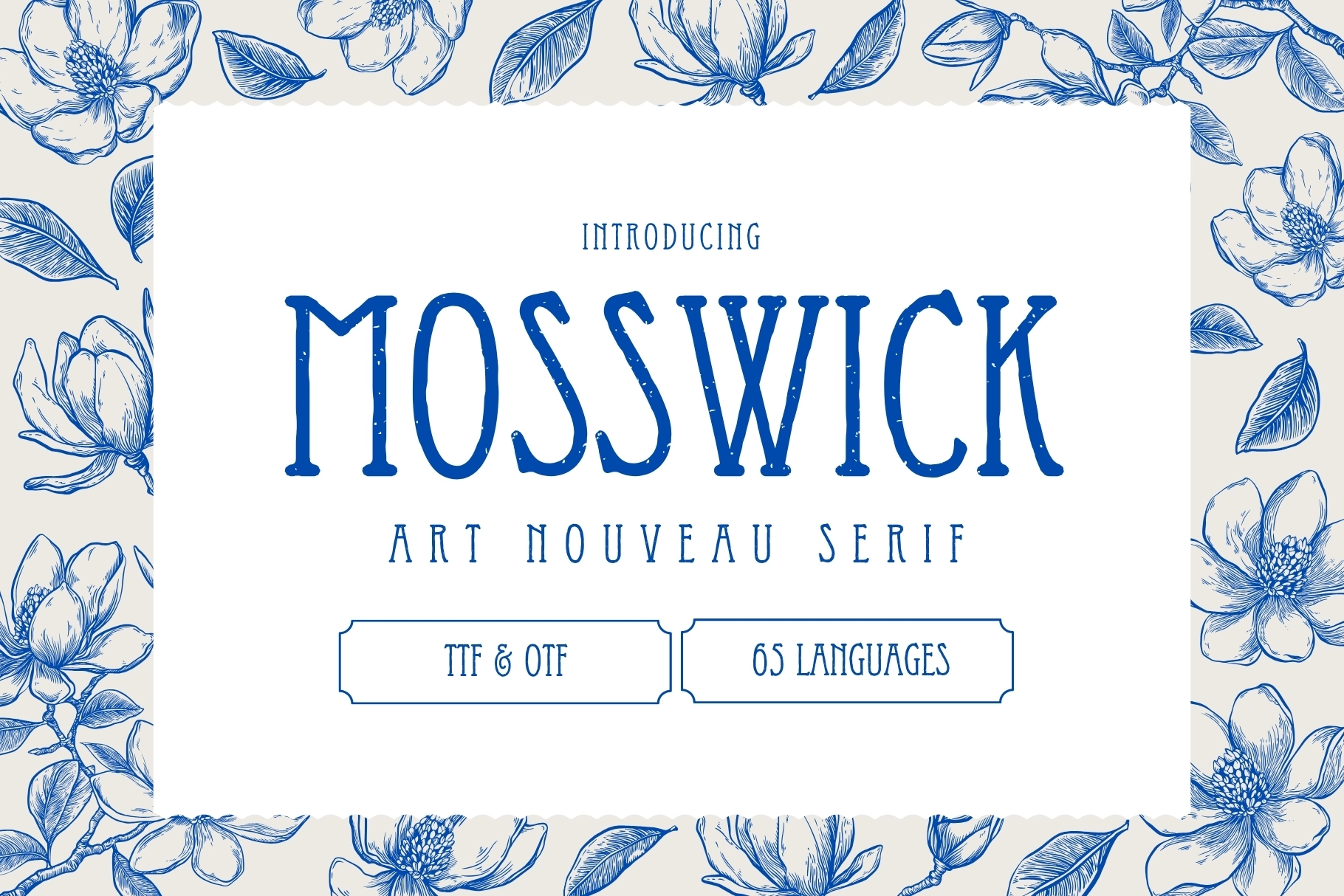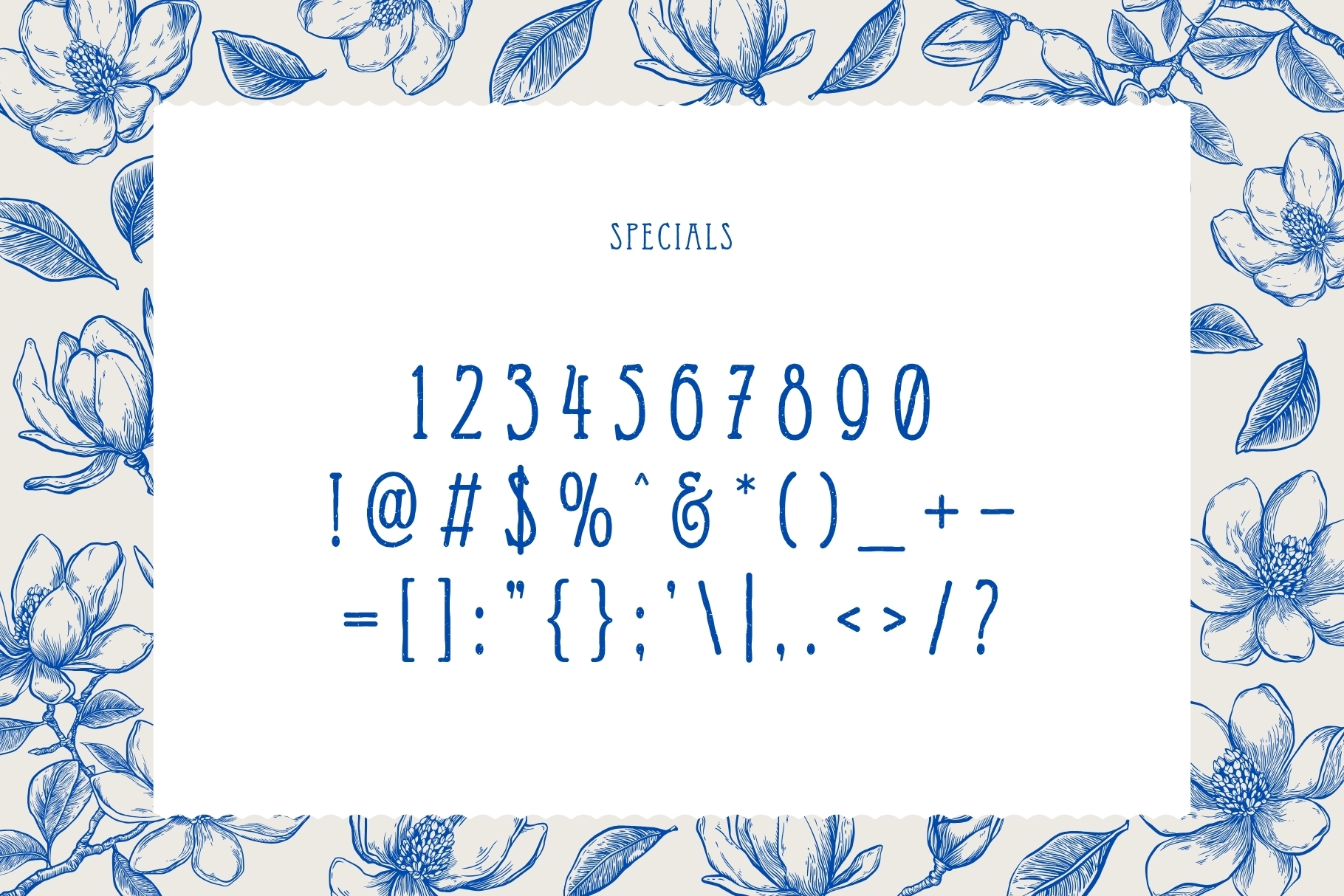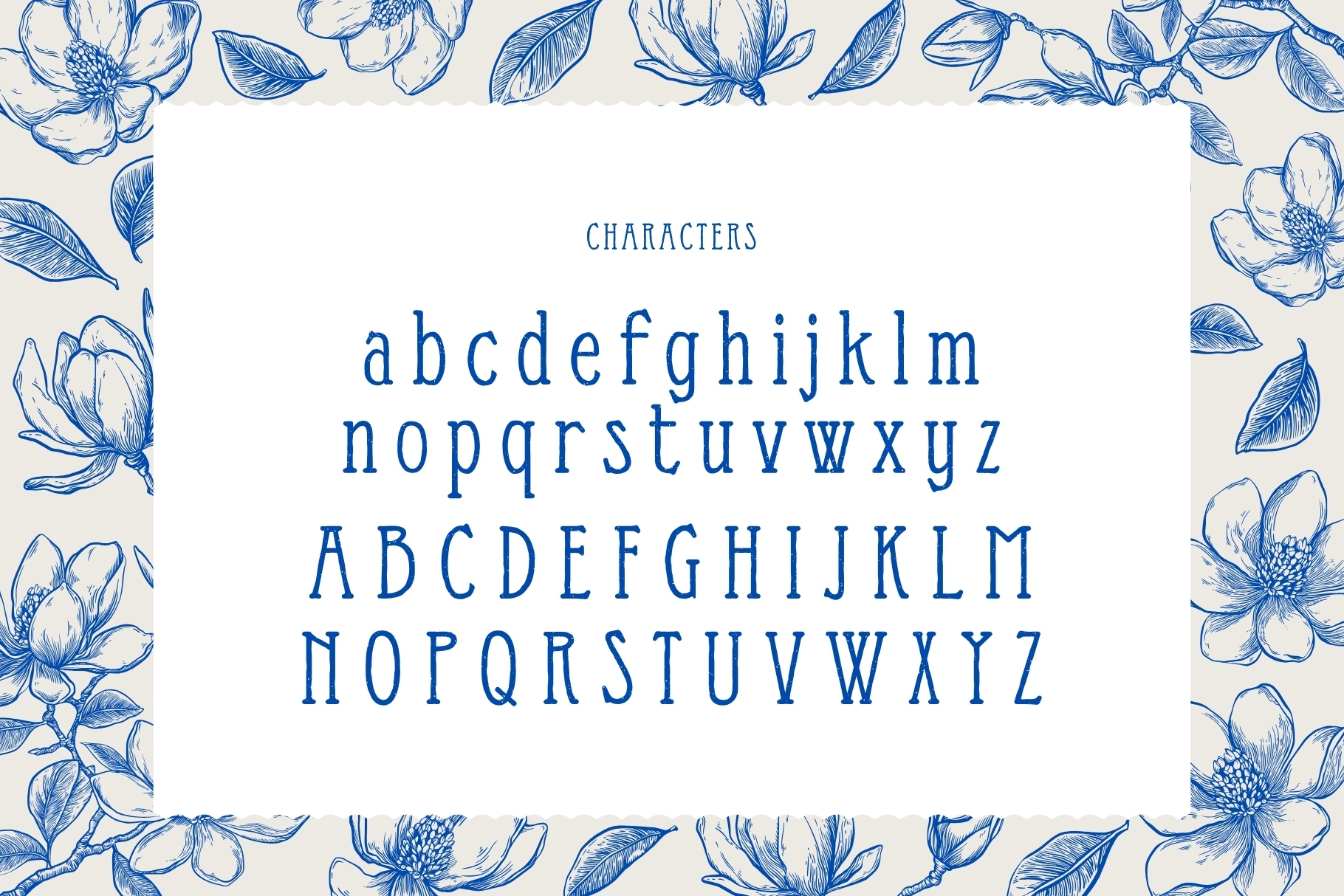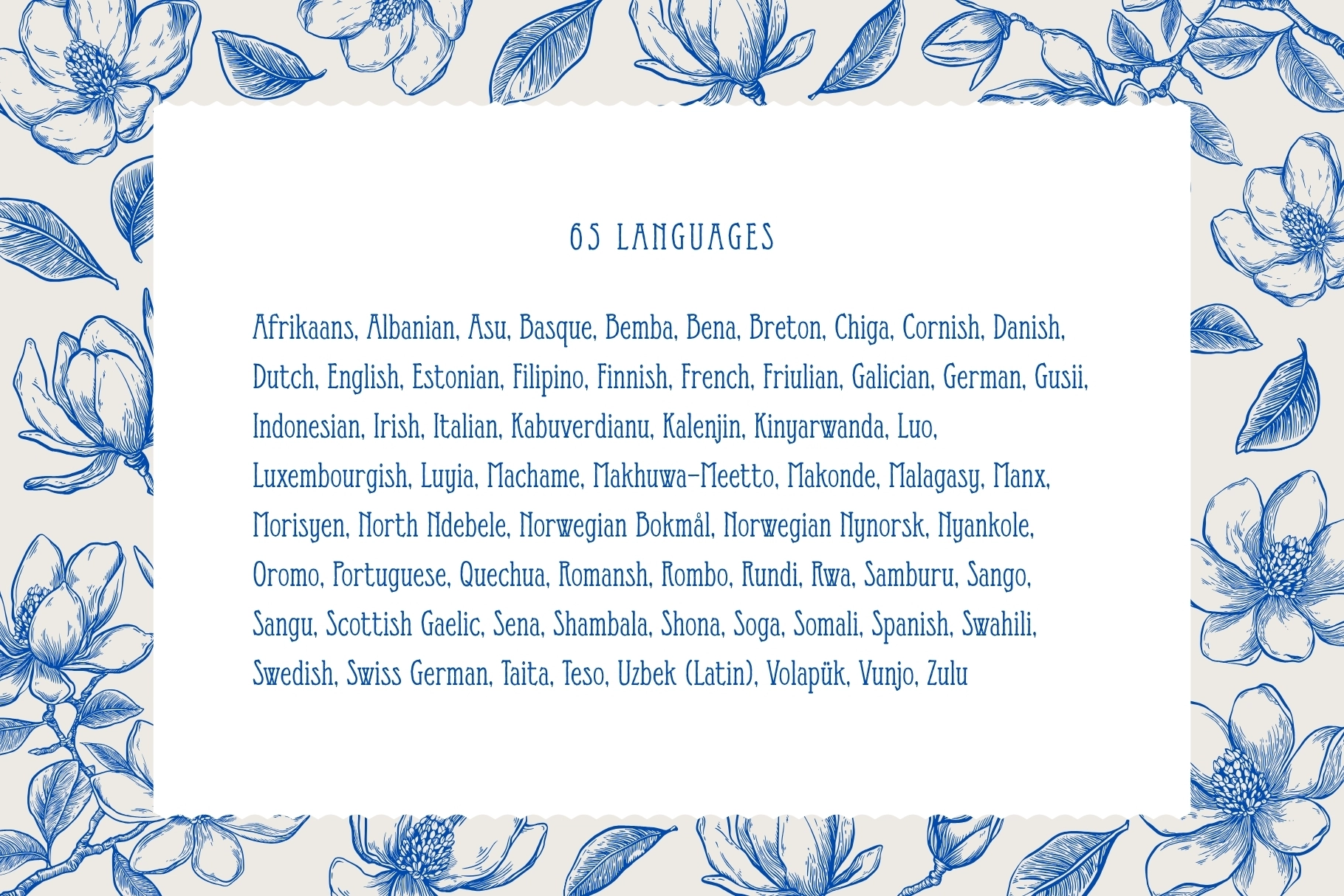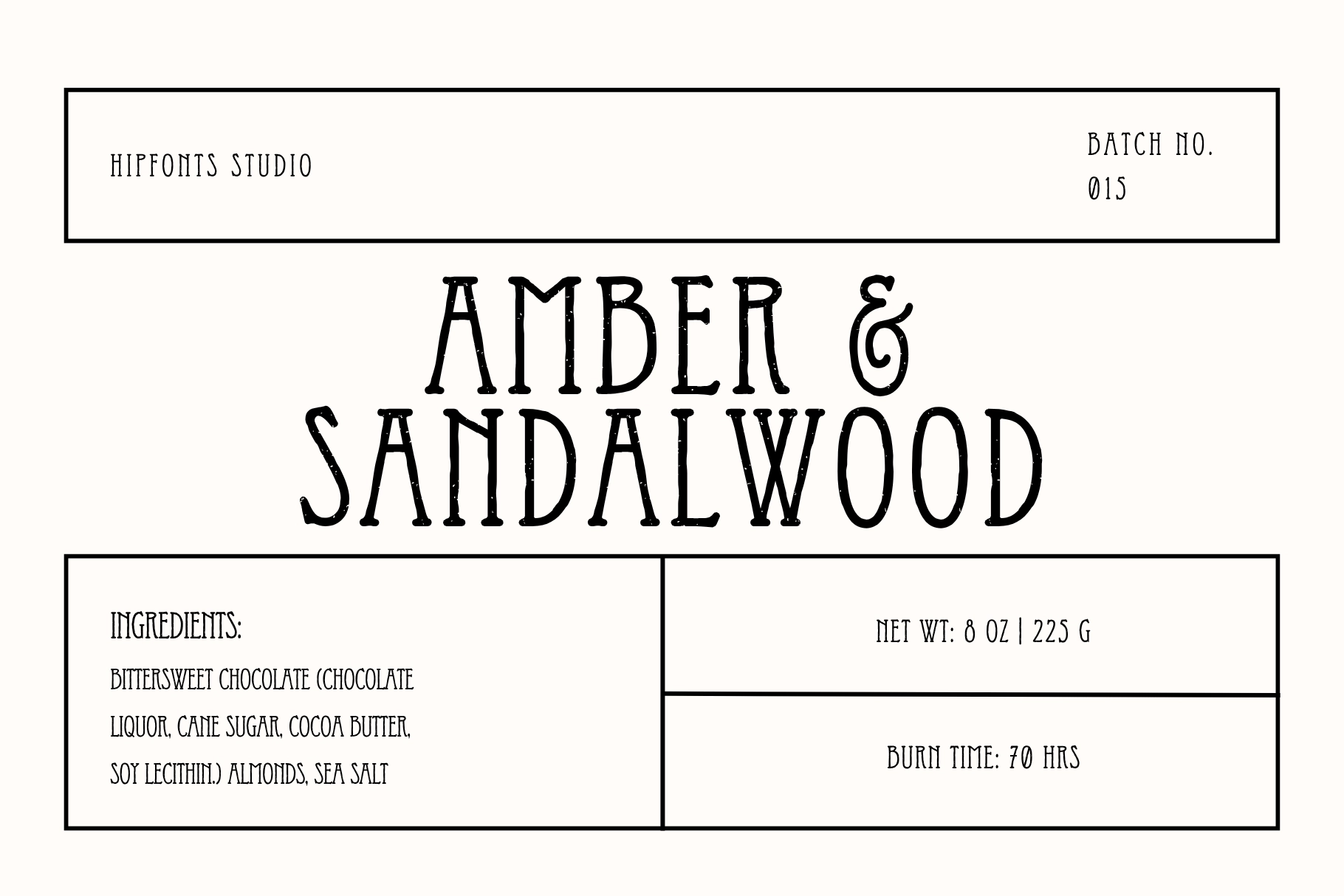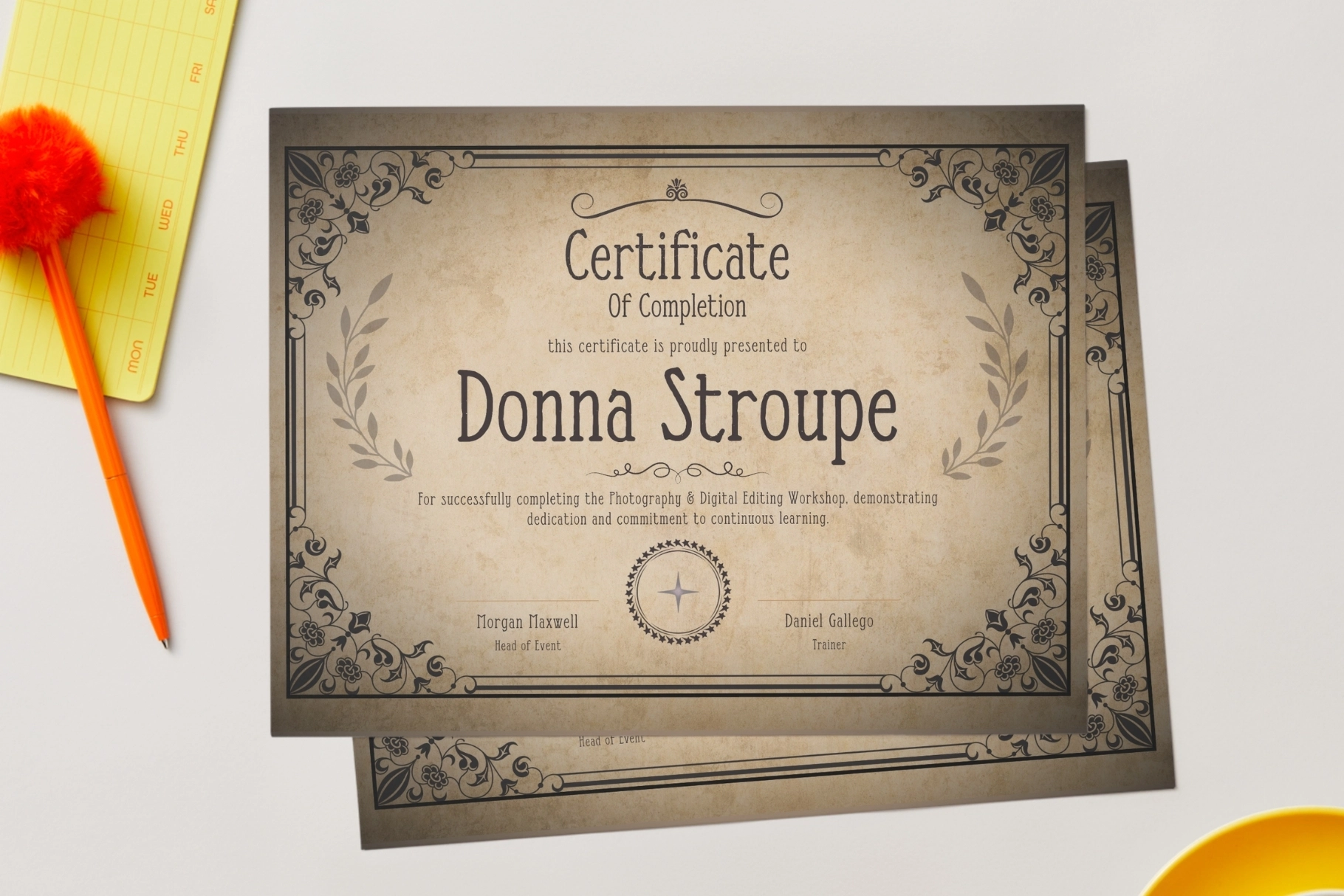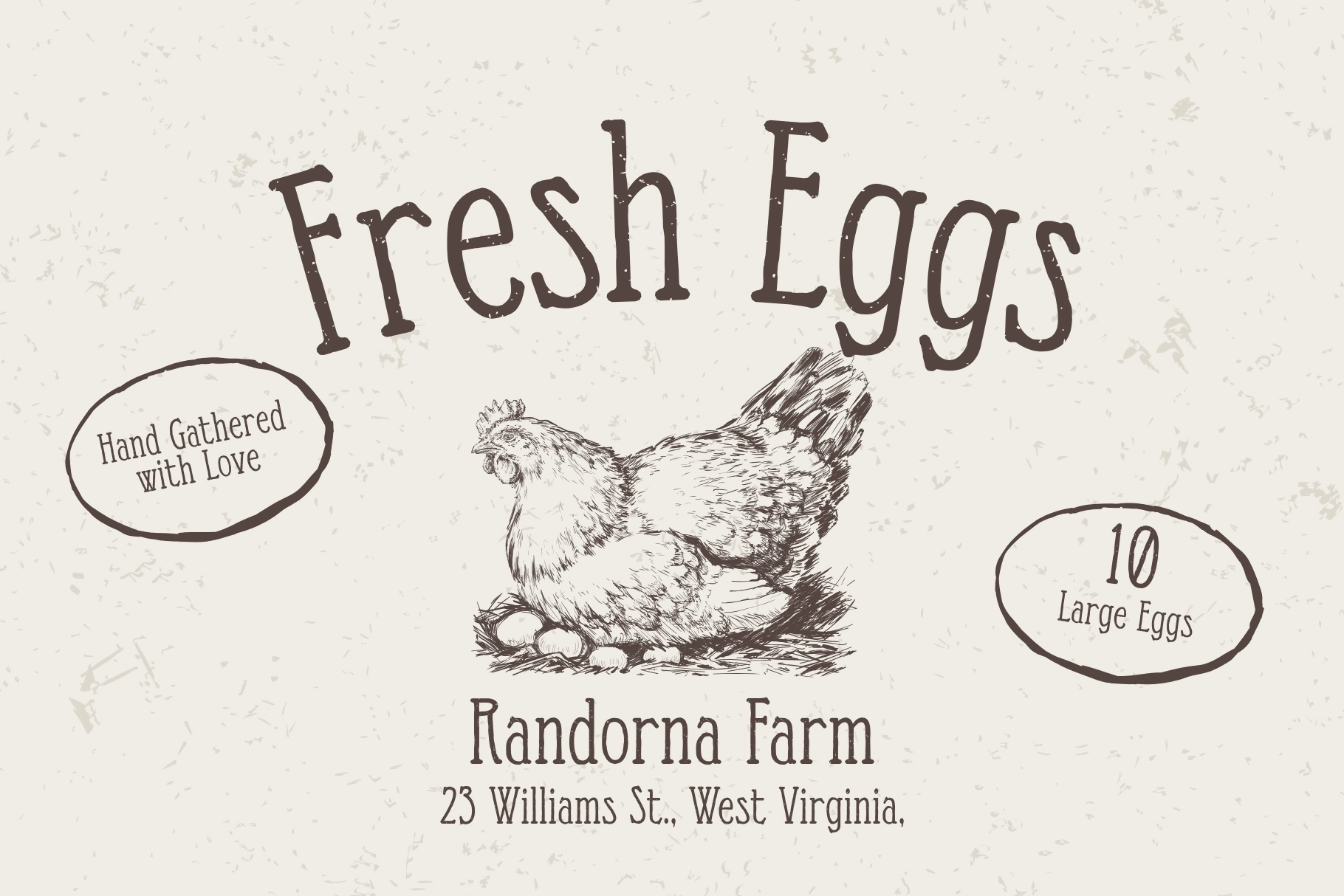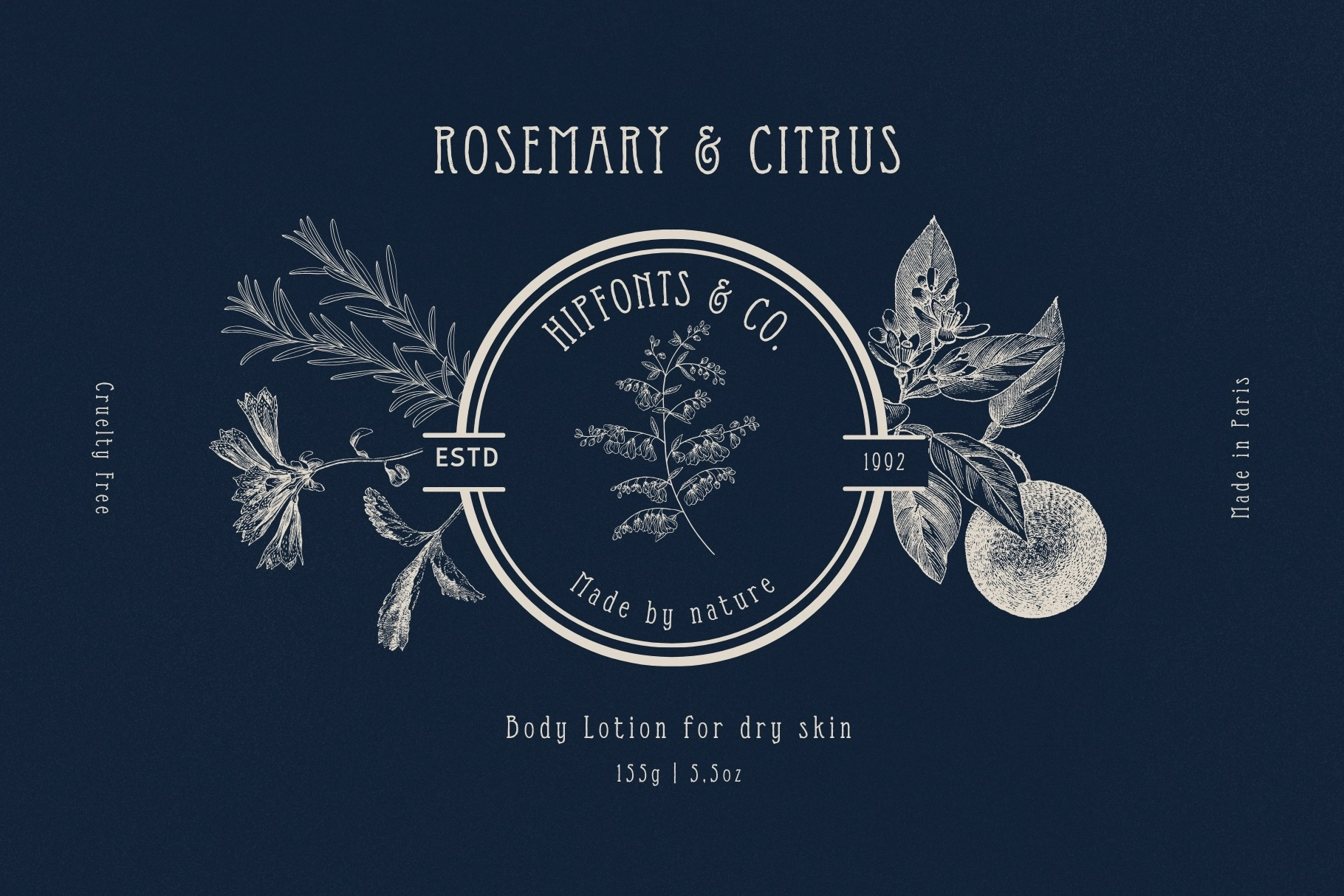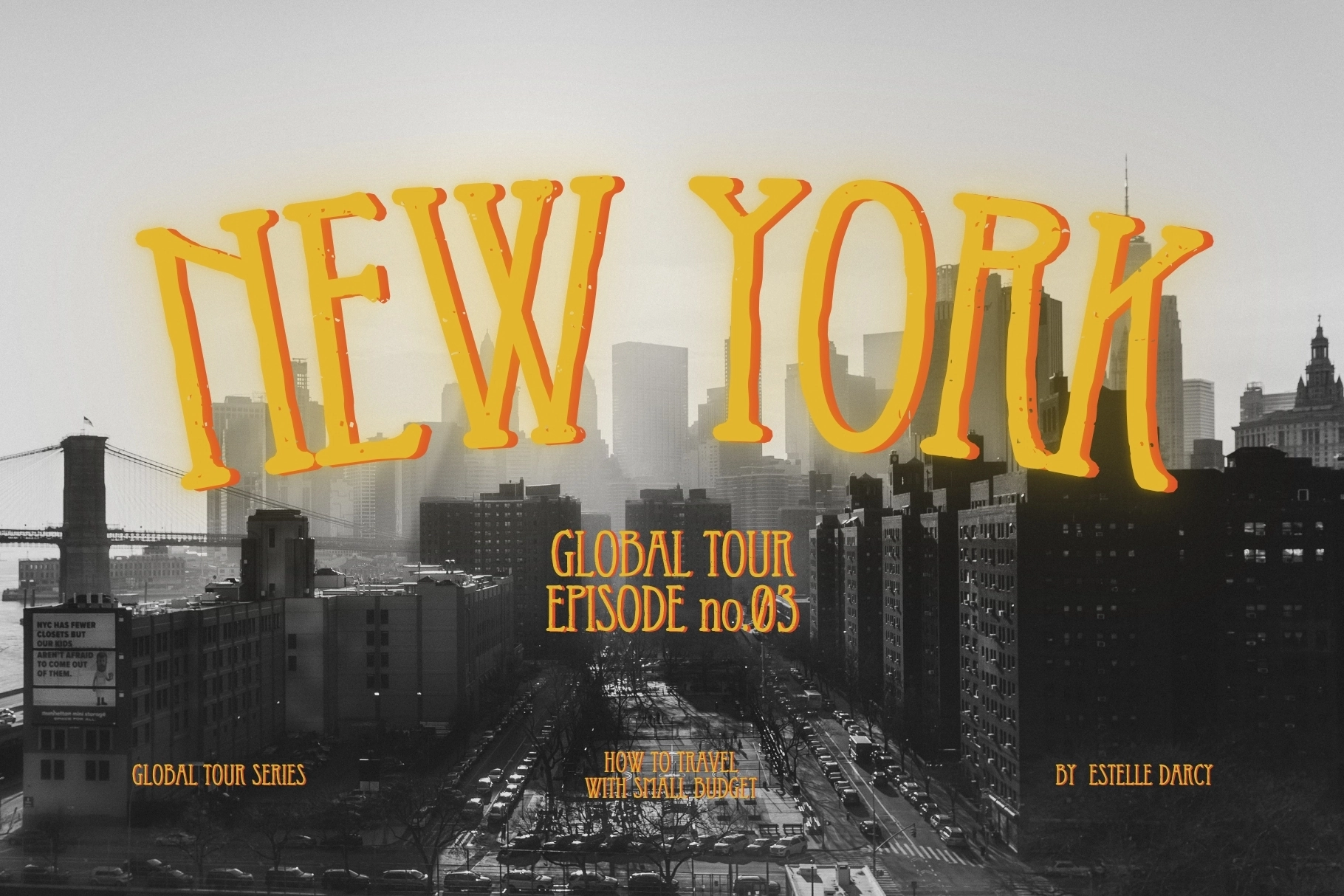
Mosswick - Art Nouveau Serif Font
Mosswick
A vintage serif with tall letterforms, narrow spacing, worn ink marks, and elegant Art Nouveau curves. Its decorative details give logos and packaging a refined antique character, with enough roughness to keep the result from looking too polished.
Mosswick works well for apothecary labels, candle packaging, soap wraps, perfume branding, boutique logos, wine labels, café menus, editorial headlines, magazine covers, wedding invitations, poster design, stationery, artisanal product lines, and heritage-style brand systems. The thin companion lettering adds a graceful contrast for small notes, batch numbers, ingredient panels, and label details.